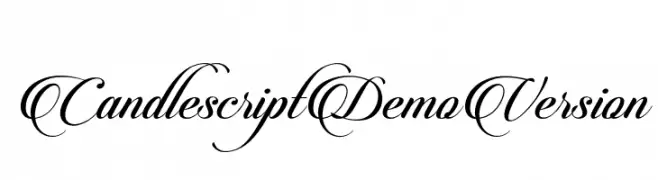
A modern, thin, monospaced font with extra-condensed width, perfect for coding.
A bold, condensed italic font with a futuristic and dynamic style.
A bold, playful font with thick, rounded strokes and a modern style.
Elegant and flowing script font.
A playful, handwritten font with a comic-like, informal style.
A bold, playful font with thick, rounded, and bubbly characters.
A bold, playful font with thick, rounded characters and a hand-drawn feel.